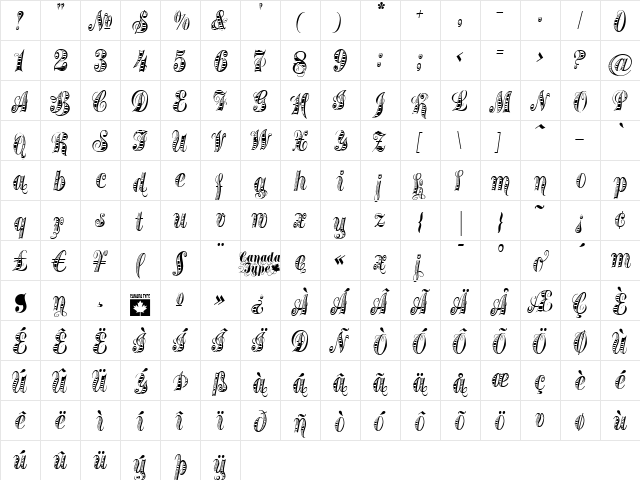
Treasury Platinum Alt Regular
Design Context for Treasury Platinum Alt Typeface
Treasury Platinum Alt is a composed and adaptable typeface that performs quietly and consistently across a wide range of design contexts.